The question “What kinds of characters are you are interested in or would you like to design apart from Japanese characters (kanji, hiragana, katakana, and the Latin alphabet)?” was asked to staff at the Type Project.
Multiple answers included Hangul characters used in the Korean language. Reasons for interest were given as follows:
・
It is completely from the appearance, but I’m interested in the rules for character parts and the geometric forms.
・
From the perspective of a non-native, I’m interested in Hangul because of the cute shape of the characters.
・
It is interesting that geometric parts are combined like a puzzle to structure each character. Since I started studying the Korean language, I actually started using the characters myself and my interest deepened.
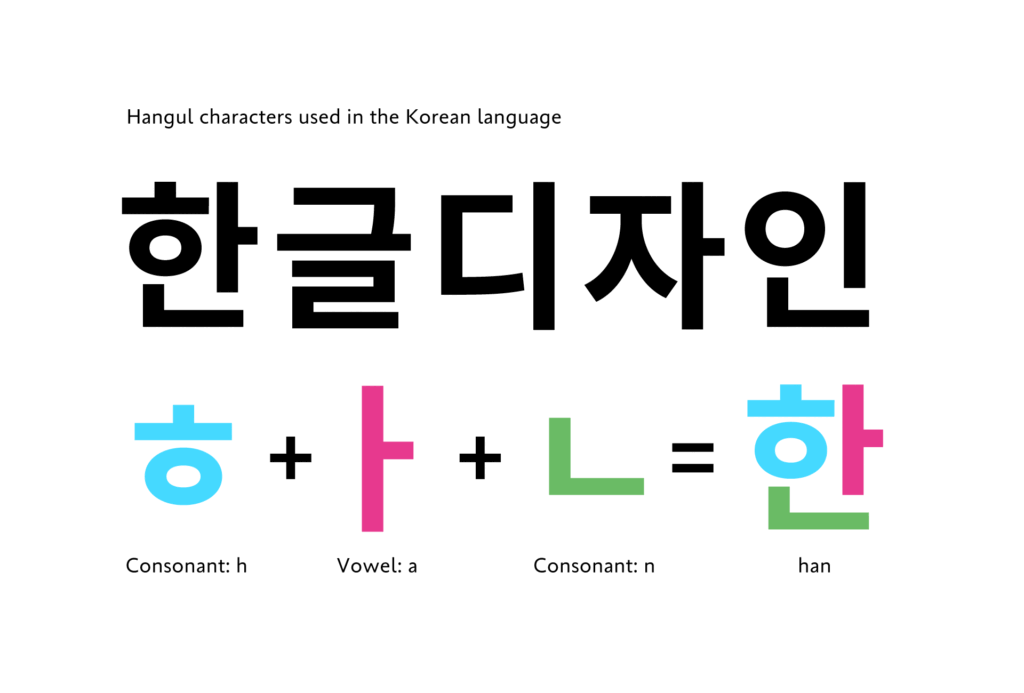
The geometric forms and differences from Japanese character forms seem to interest the designers at the Type Project.
While each kanji used in Japanese is an ideogram that indicates a “meaning,” Hangul is a phonogram, similar to kana and the Latin alphabet, that indicates “sound.” Unlike kana, which has unique shape for each character, one Hangul character is structured by a combination of parts that indicate consonants and vowels in accordance with specific rules.
In some places, even in public transport, there are Korean notations in addition to Japanese and English. Due to the influence of popular Korean dramas and K-pop music, I feel that there are increased chances to see the Korean advertisements and products in the city.
Some of our readers may also be interested in Korean Hangul.